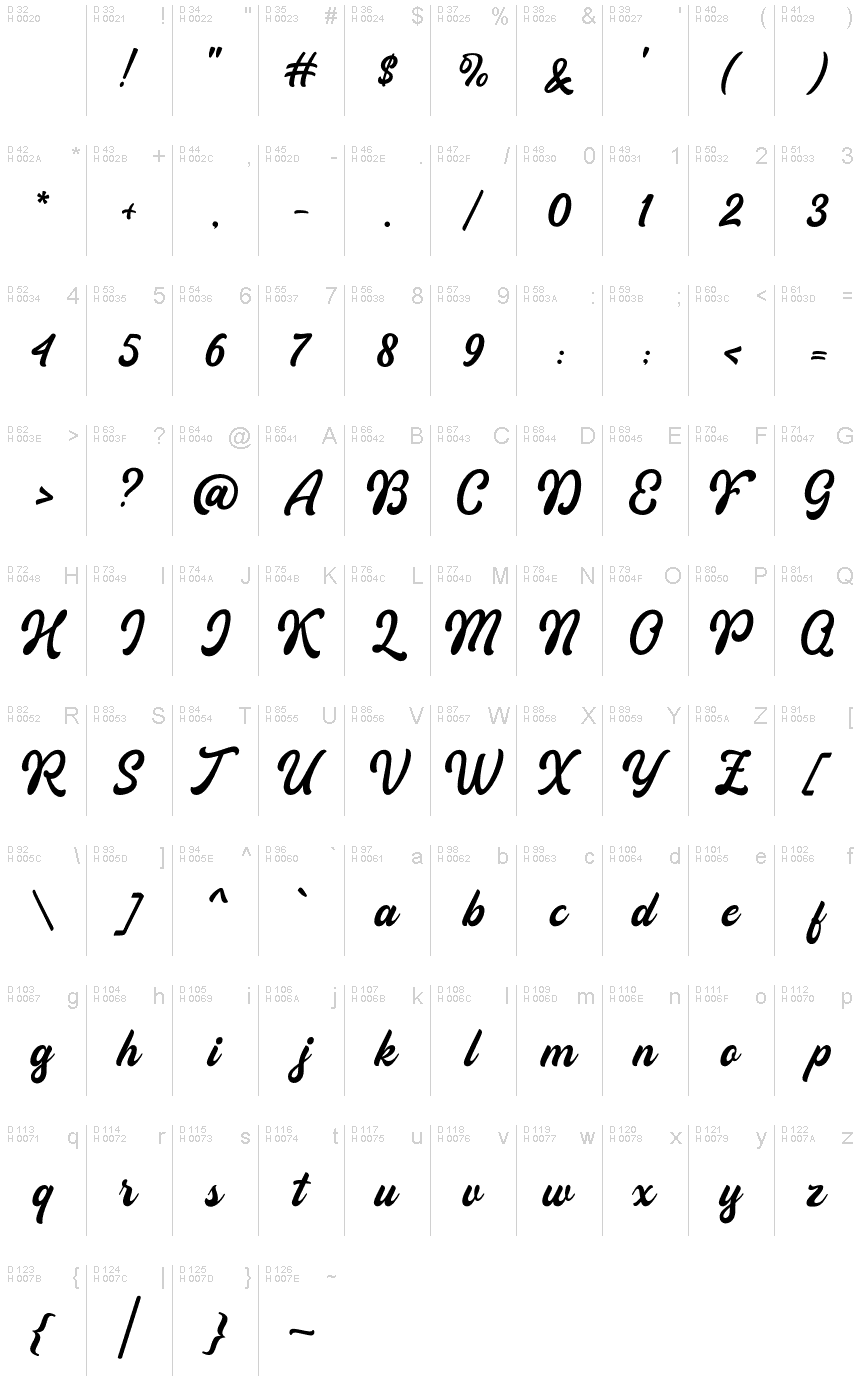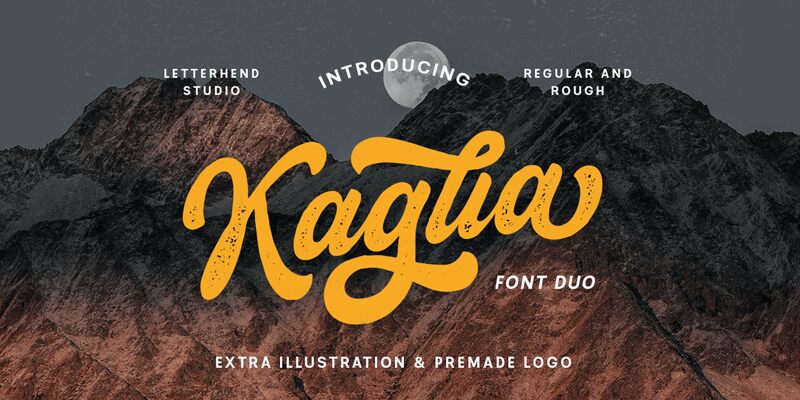
KagliaDemo
Kaglia, a vibrant semi-bold font by Letterhend Studio, boasts a smooth brush style that exudes creativity and elegance.
Its fluid strokes and unique letterforms make it perfect for fashion branding, magazine layouts, and artistic projects. With its distinctive character, Kaglia adds a touch of sophistication to logo designs, packaging materials, and social media graphics. Whether you're working on a modern wedding invitation or an eye-catching poster for an art exhibition, this versatile typeface will make your project stand out with its seamless blend of boldness and finesse.